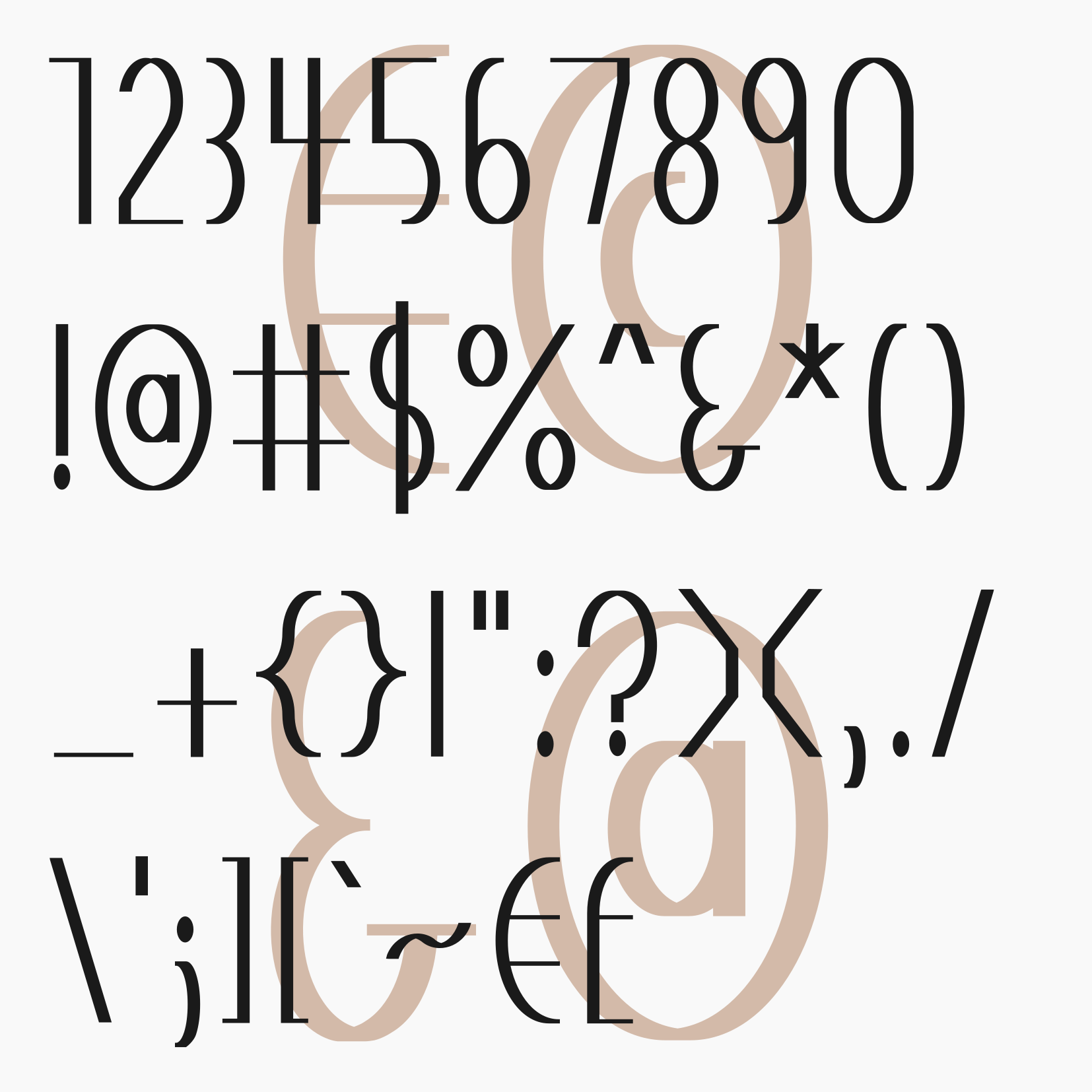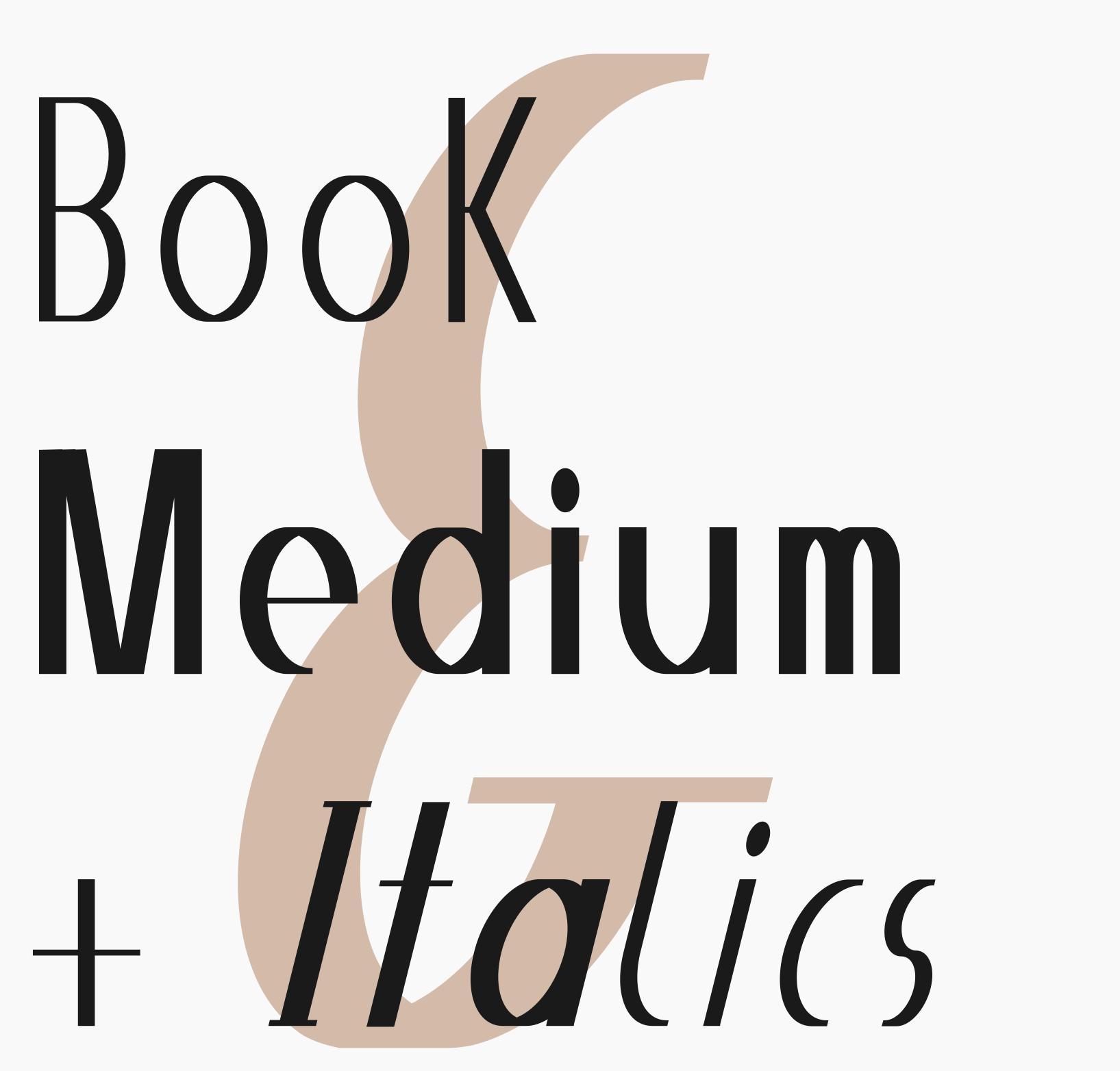
PVF RemedyCo
PVF RemedyCo continues the Ditone series of Remedy font as a "child" of Carousel Modern Geometric one. It is the Condensed Ditone extra addon by CYN Fonts and Petros Vasiadis in Book and Medium emphasis with Italics. It features Greek, Latin, numbers, punctuation symbols, and special characters. It follows the Sans-Serif path with a sensible appearance that transforms modern into an aesthetic world.